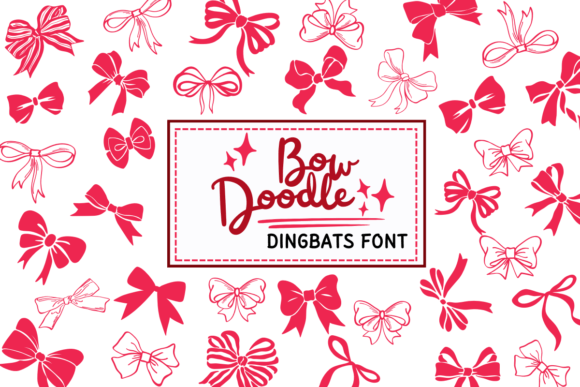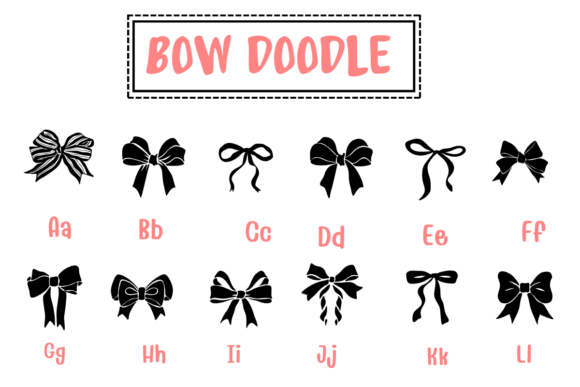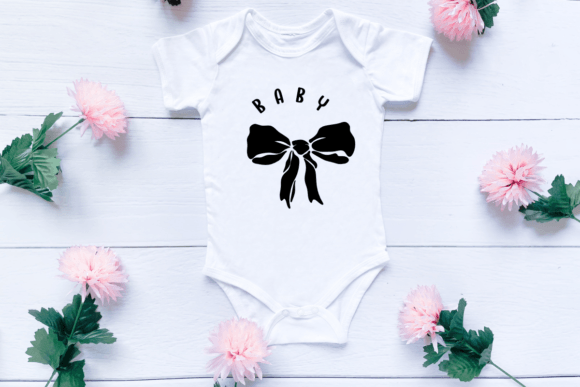
Bow Doodle Font
Bow Doodle is a playful dingbat font featuring cute bows. Each character in the font displays a different bow design, perfect for adding a touch of charm to your projects like cards, invitations, or scrapbooking.